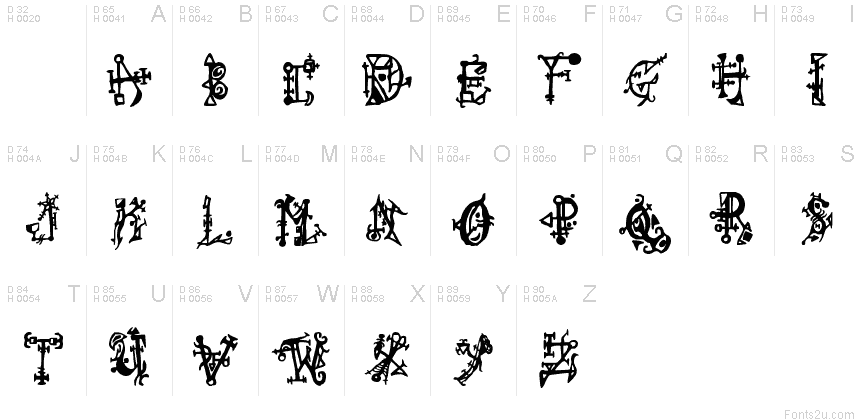
Wiqued T
Wiqued T by Heather Daniels is a free witchy ornamental display font with a hand-drawn, storybook Gothic mood. The letters lean on looping curls, thorn-like hooks, and wandering strokes that make the font feel sly, tangled, and a little theatrical without turning stiff.
It fits poster work, Halloween flyers, zine covers, spooky shop branding, and title cards where a few letters can carry the mood on their own. As a free font, Wiqued T also suits monograms, drop caps, and short cover lines, especially when you want those curling ends and crooked rhythm to do more than plain lettering would.